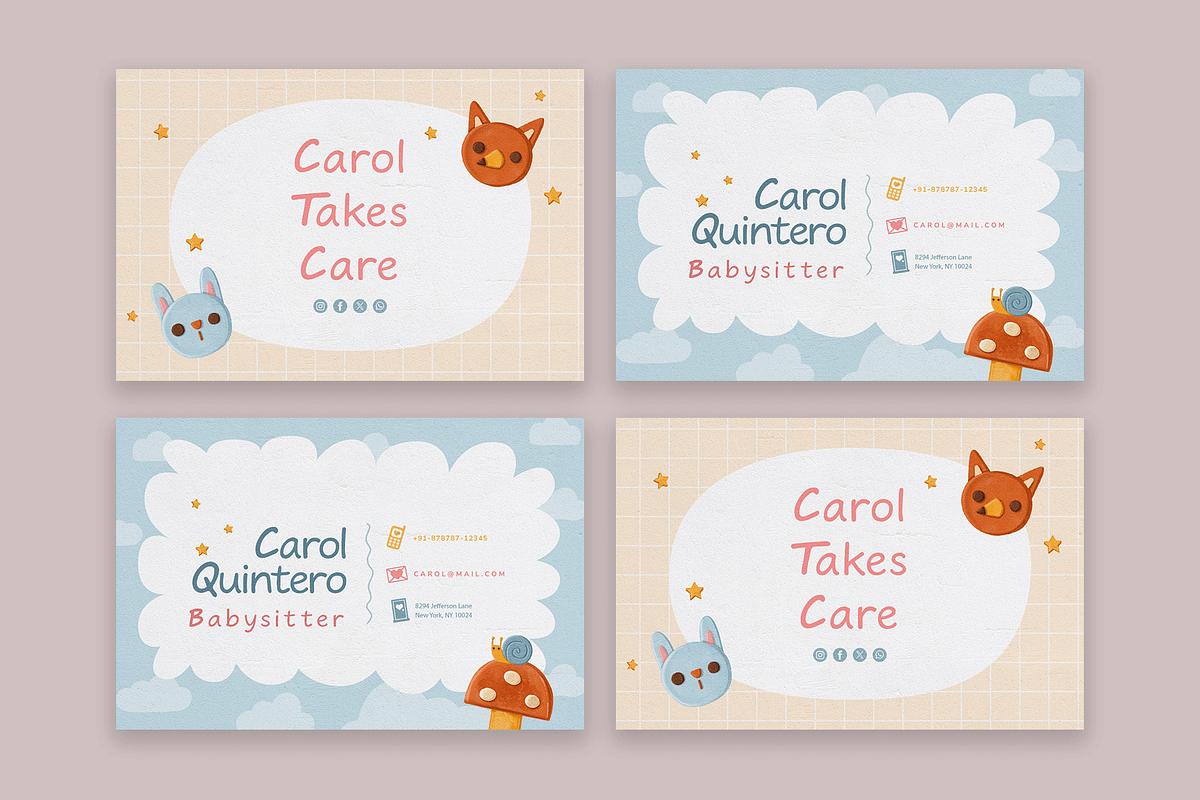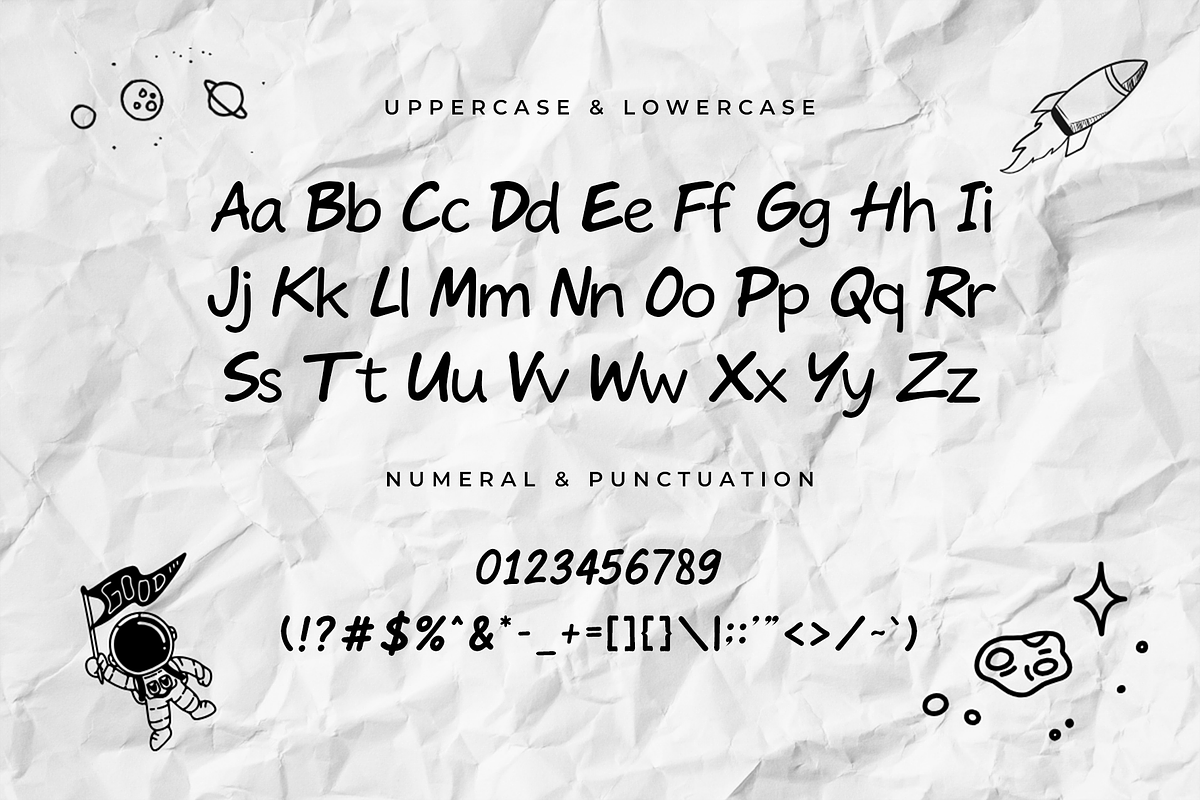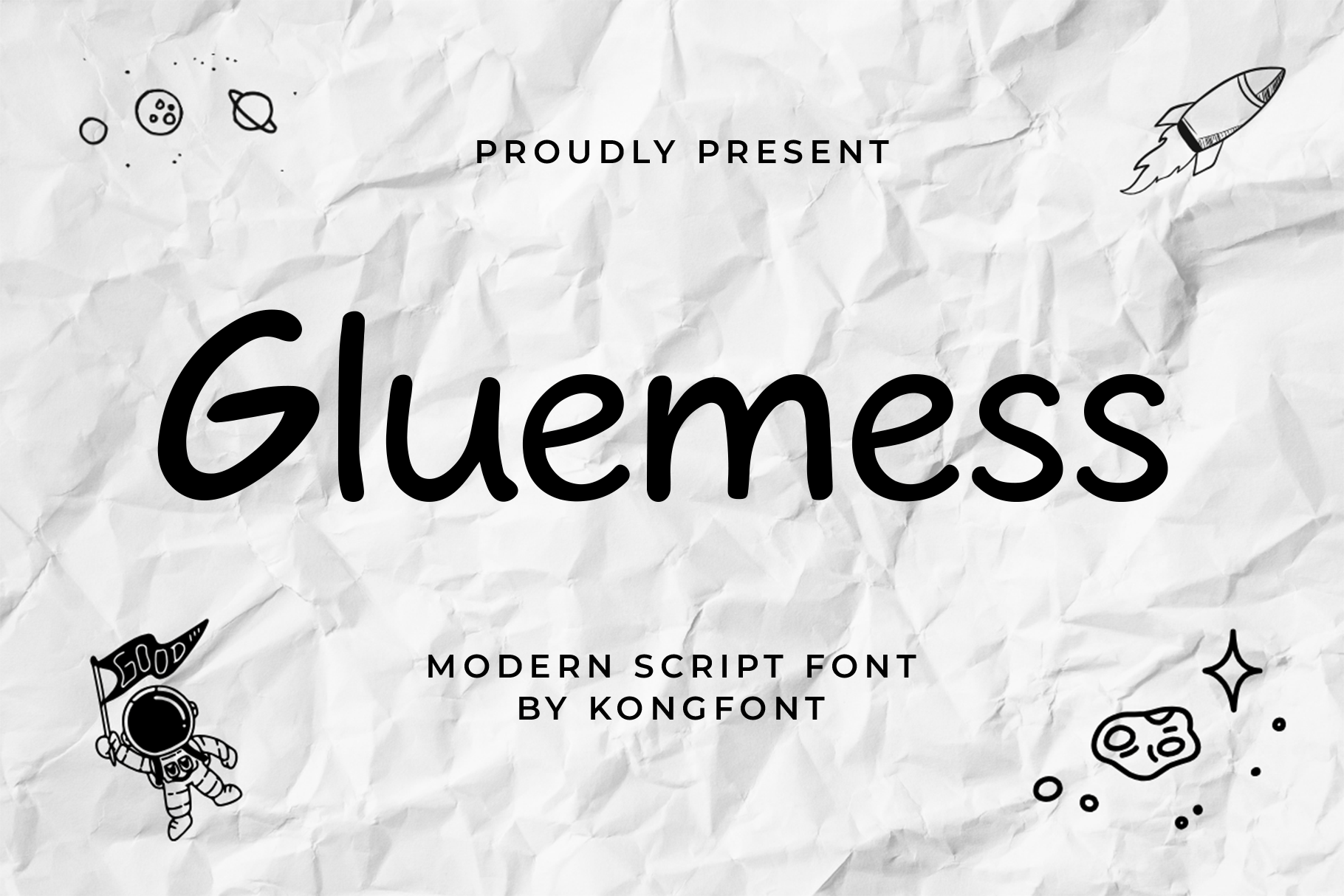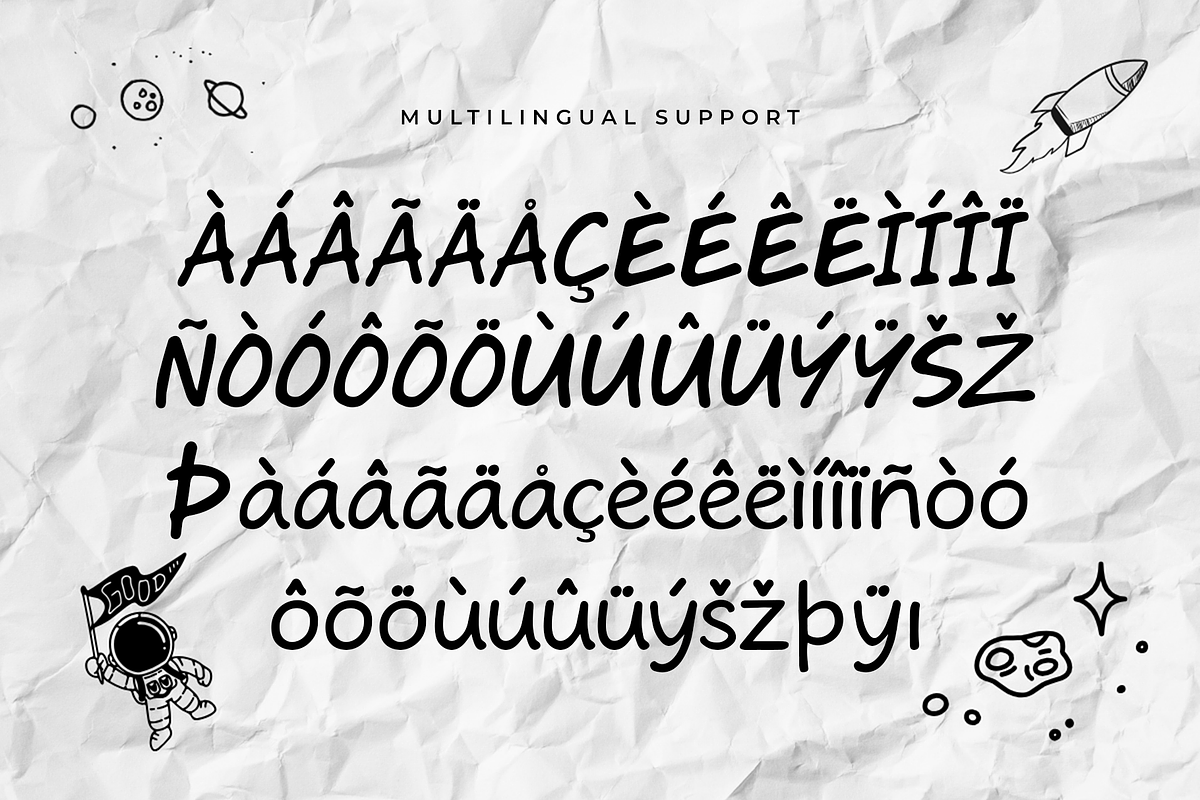
Gluemess – Modern Script Font
Gluemess is a modern script font that embraces beautiful imperfection with a stylish and expressive handwritten touch. Designed for creatives who love raw energy and emotional flow in their typography, Gluemess combines contemporary script style with messy strokes that feel personal, artistic, and bold.
Ideal for branding, album covers, streetwear designs, social media graphics, quotes, and creative logotypes, Gluemess adds a sense of movement and authenticity to your work. Its fluid, brush-like strokes offer a modern aesthetic while maintaining an organic, hand-drawn feel.
With a full character set, alternates, ligatures, punctuation, and multilingual support, Gluemess is not just a font—it’s a visual voice that tells your story with unapologetic flair.